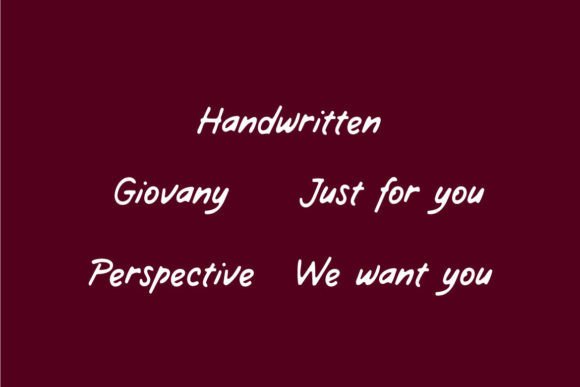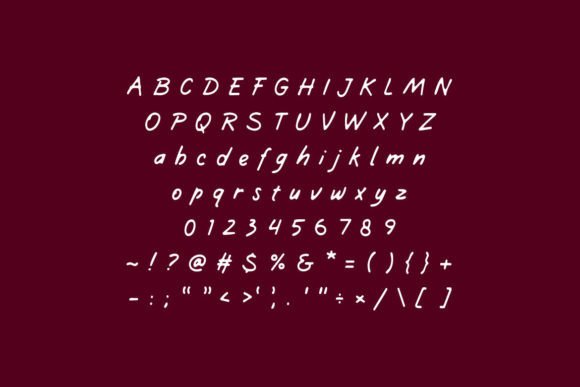
Introduction to Heyna Font
Have you ever stared at a blank canvas, trying to find the perfect font to bring your creative project to life? That’s exactly what happened to many designers when they stumbled upon the Heyna Font. This beautifully crafted, neatly handwritten font has been making waves in the design world with its clean and modern look, perfectly suited for a wide range of applications.
With its high-quality, transparent background, the Heyna Font is a valuable design resource for any creative project. Its unique, rounded characters bring a touch of elegance to book titles, music covers, and children’s books, while its versatility makes it an ideal choice for posters, advertisements, and social media content. Whether you’re a seasoned designer or just starting out, the Heyna Font is sure to be a game-changer.
Key Features of Heyna Font
- High-quality font with a unique, creative design, perfect for various projects.
- Transparent background, allowing for seamless integration into any design.
Honest Review: Heyna Font
As a designer, I’m always on the lookout for high-quality design resources to elevate my creative projects. Recently, I stumbled upon the Heyna Font, and I’m excited to share my thoughts on this design gem.
What works well: ✨ The Heyna Font is a versatile font with a unique, elegant design that’s perfect for a variety of creative projects. Its high-quality design makes it a great addition to any portfolio. I also appreciate the transparent background, which makes it easy to use and customize.
- Perfect for creative projects such as branding, logos, and typography-based designs
- High-quality design that’s suitable for both digital and print media
- Easy to use and customize due to the transparent background
Overall, I’m impressed with the Heyna Font’s unique design and high-quality performance. It’s a great addition to any designer’s toolkit, and I’d definitely recommend it for personal projects or non-commercial use.
Tips for Getting the Most Out of Heyna Font
Experiment with different font sizes and colors to achieve the desired effect.
Use the Heyna Font in combination with other design elements to create a cohesive look.
The Heyna Font is ideal for:
Creating eye-catching headlines and titles.
Designing social media graphics and advertisements.
Adding a touch of elegance to presentations and documents.